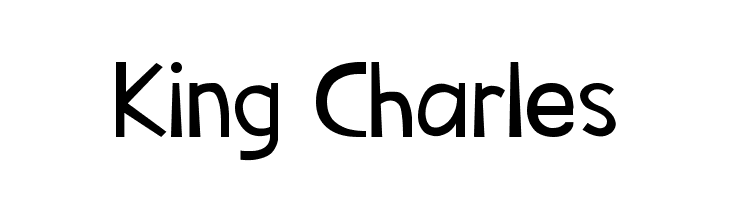
A modern, playful font with geometric and organic elements.
A playful, bold font with rounded edges and a whimsical style.
A bold, playful font with rounded, whimsical characters.
A playful, rounded font with bold strokes and a whimsical style.